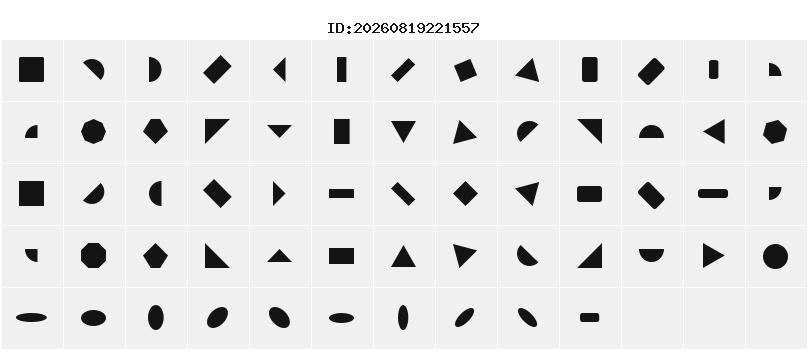
• Font Name: Shape Blocks Solid
• Designer: C. A. Kellogg & Yuri Yarmola
• Description: Shape Blocks Solid is a pluginfonts.com typeface designed by C. A. Kellogg & Yuri Yarmola. The Shape Blocks Solid font was designed to facilitate drawing common, basic, and complex shapes for all computer users. The individual characters were further designed to be used as "component shapes", in combination(s) variously, to produce still other shapes or shape variations.